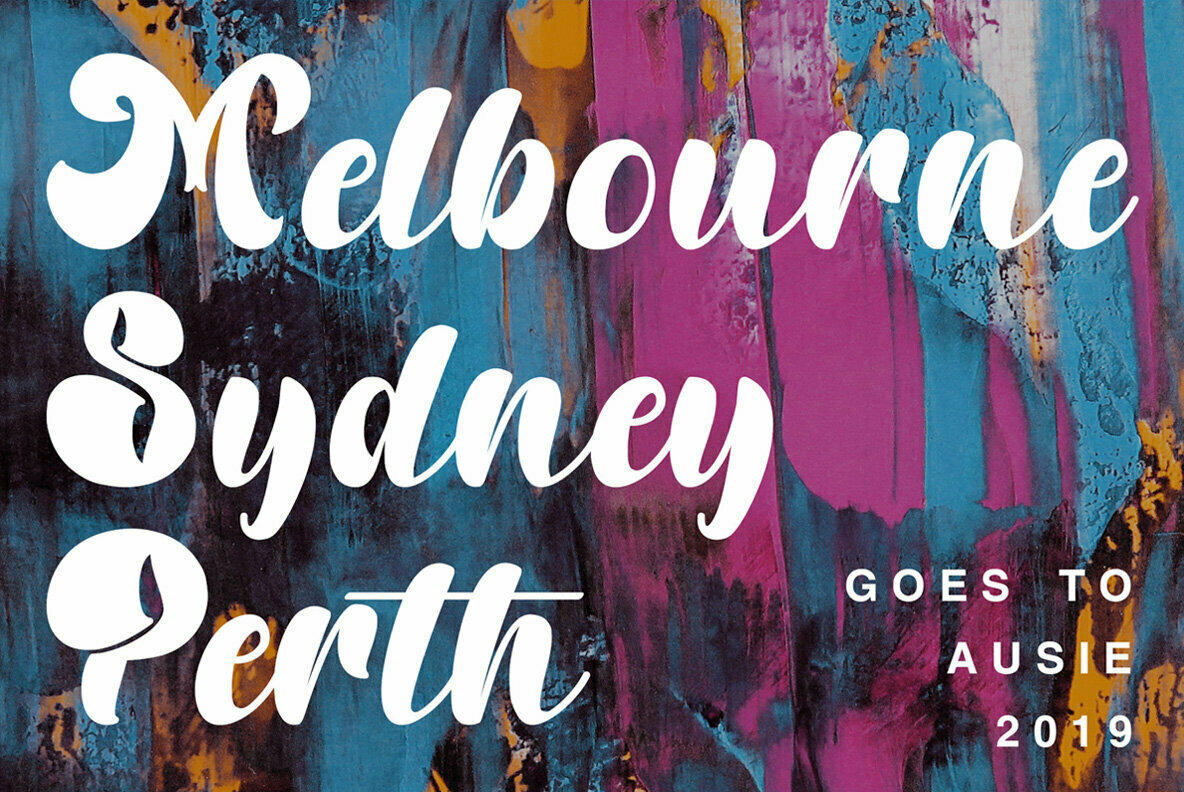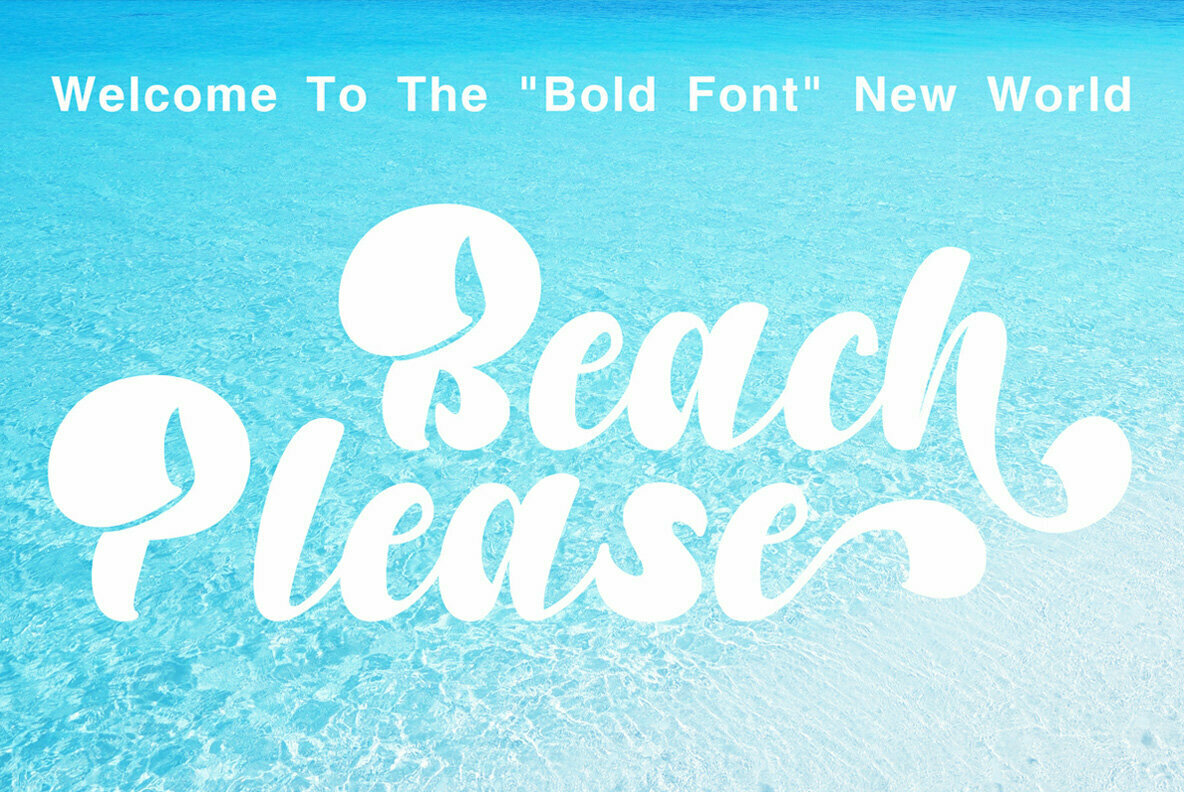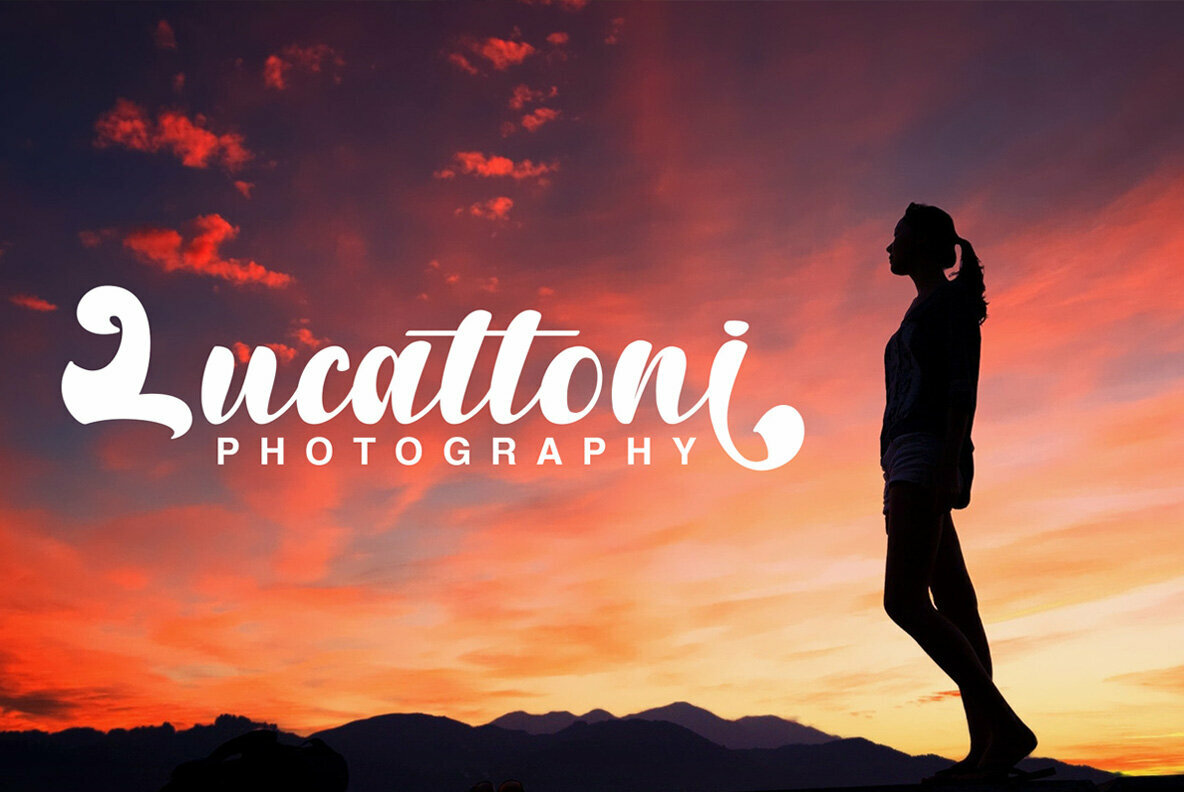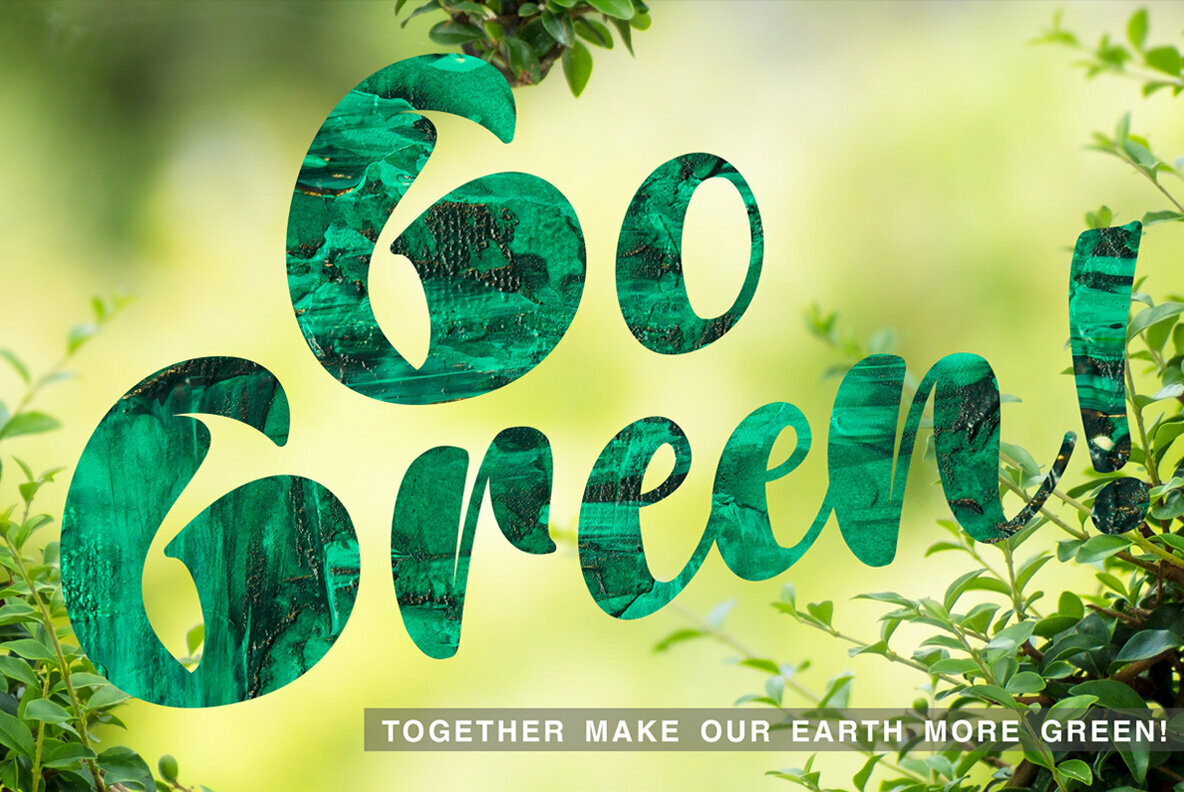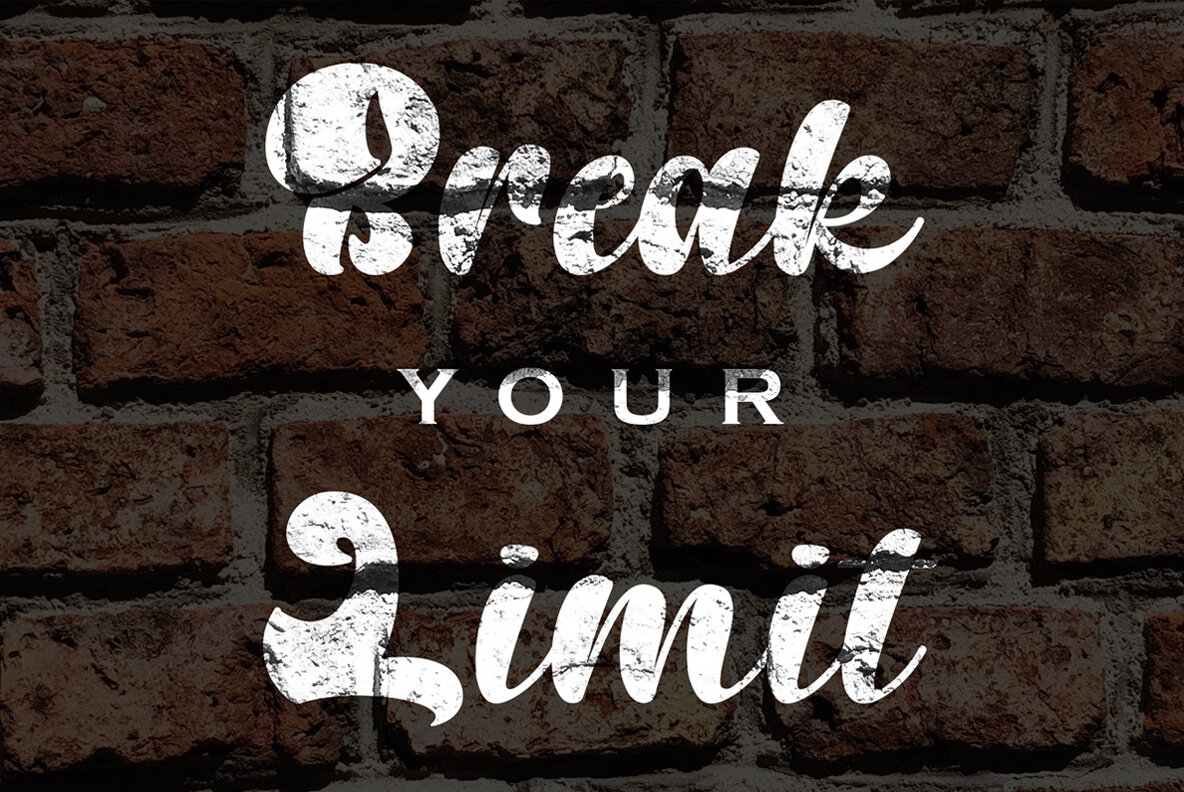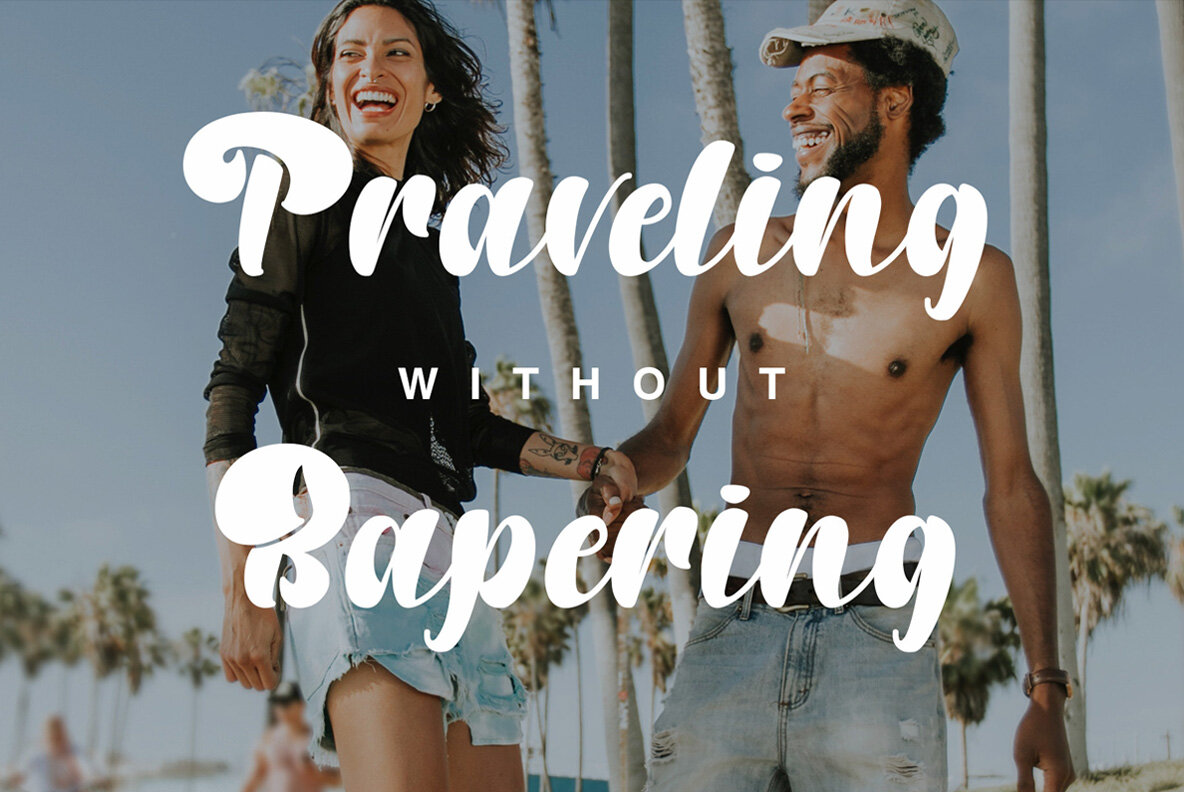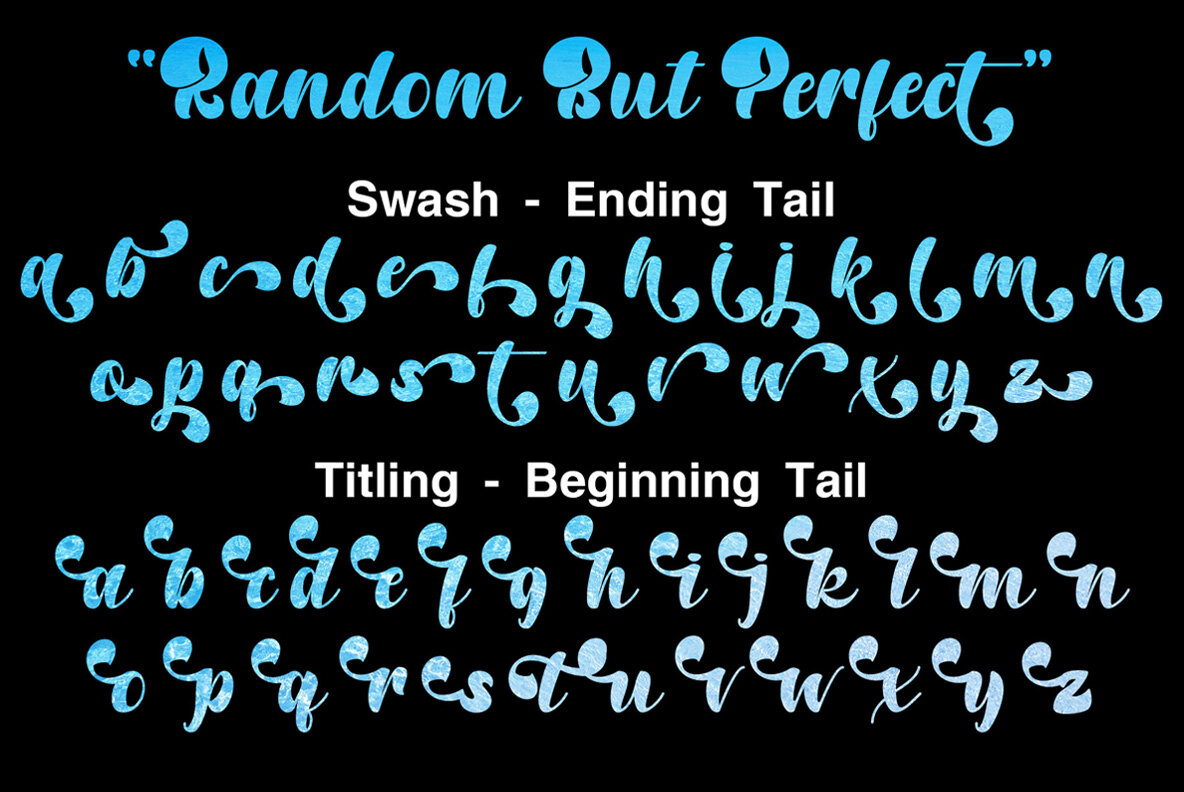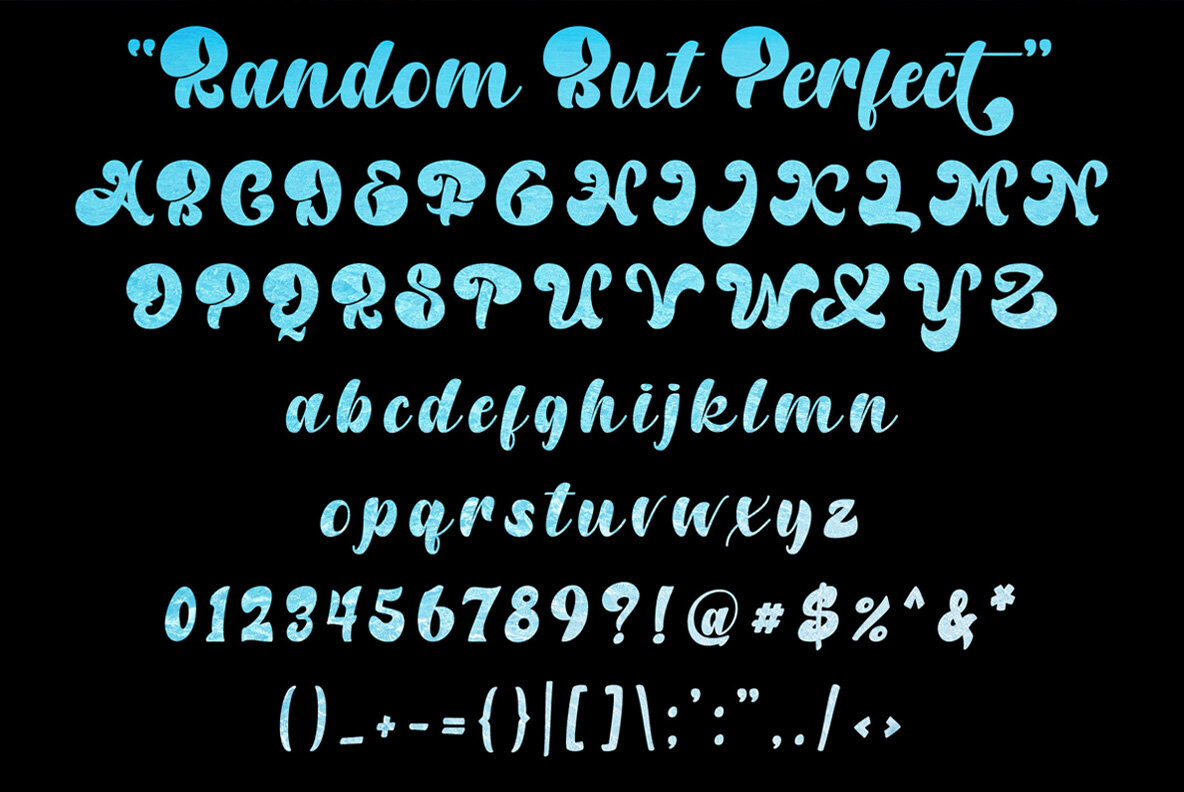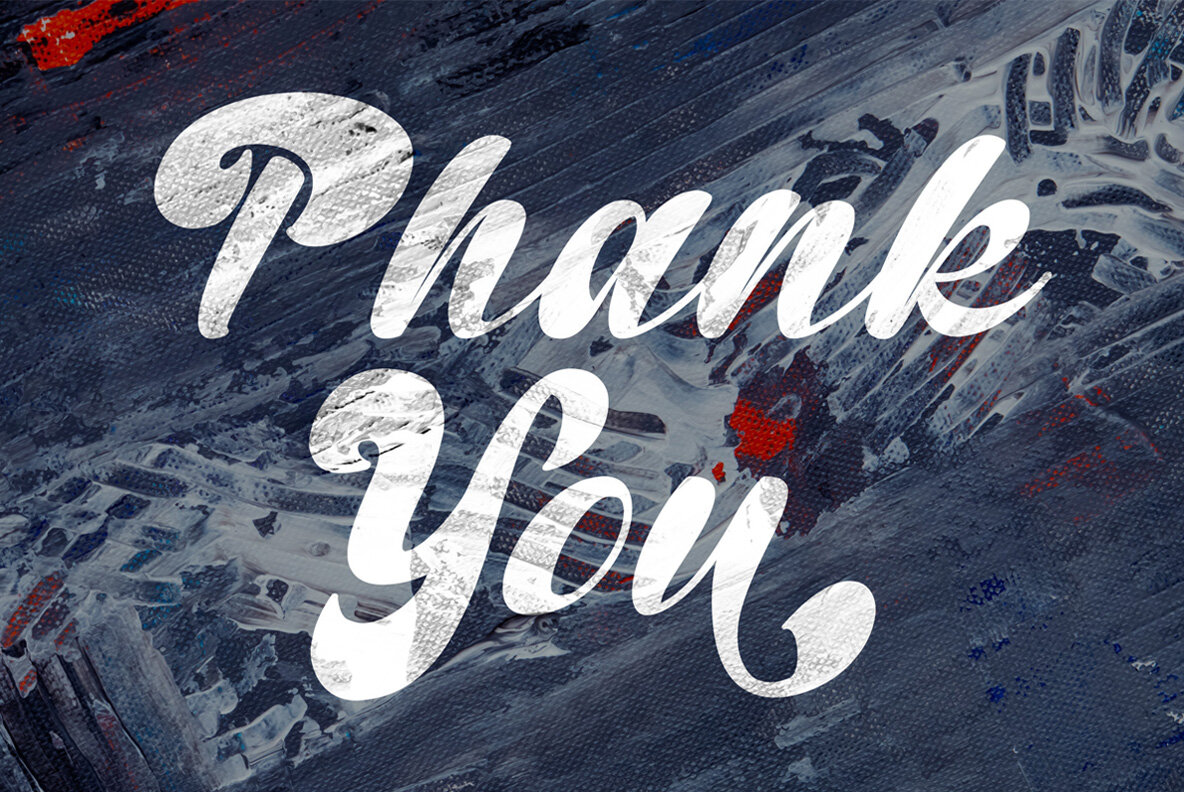
Random But Perfect Font
Capture the essence of modernity with Random But Perfect, a bold script font designed for readability and impact. This unique typeface combines stylish quirks with strong strokes, making it ideal for those who aim to communicate strength and innovation in their visual projects. With an array of ligatures, titling options, and elegant swashes, Random But Perfect ensures your work exudes sophistication. This font, crafted for the modern enthusiast, lends a passionate edge to your designs—whether it be for branding, posters, or logos.Random But Perfect: Bold Script for Modern Design